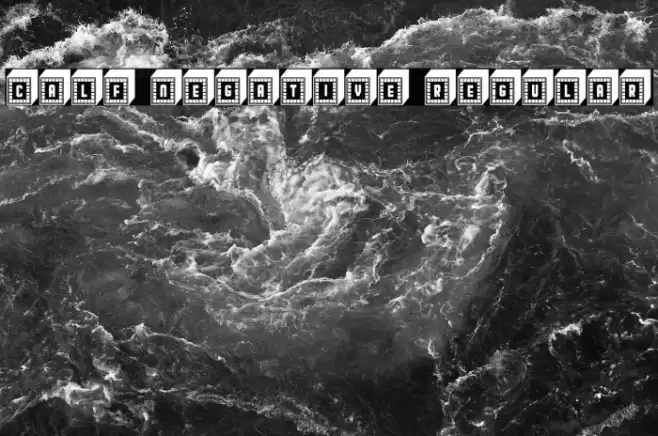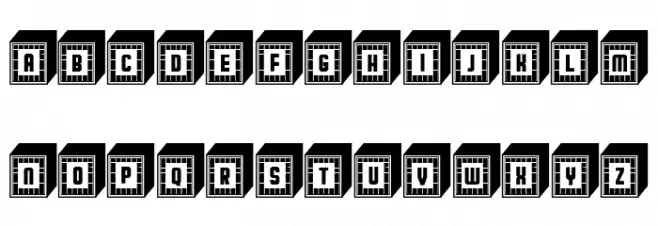
Calf Negative Regular Font
Calf Negative Regular Description
This font features a bold, blocky design with a unique shadow effect that gives each character a three-dimensional appearance. The letters are enclosed in a square frame, adding a structured and geometric feel. The negative space within each character is used creatively to enhance readability while maintaining a distinct style. The font's design is reminiscent of vintage signage or retro digital displays, making it stand out in any application. The consistent use of shadowing and framing across all characters ensures a cohesive look, suitable for projects that require a strong visual impact.
A bold, blocky font with a 3D shadow effect and square framing from Decorative fonts.
- Proposed Projects: Ideal for retro-themed designs, posters, signage, and branding projects that require a strong visual presence.
- Overall Style: Retro, Decorative